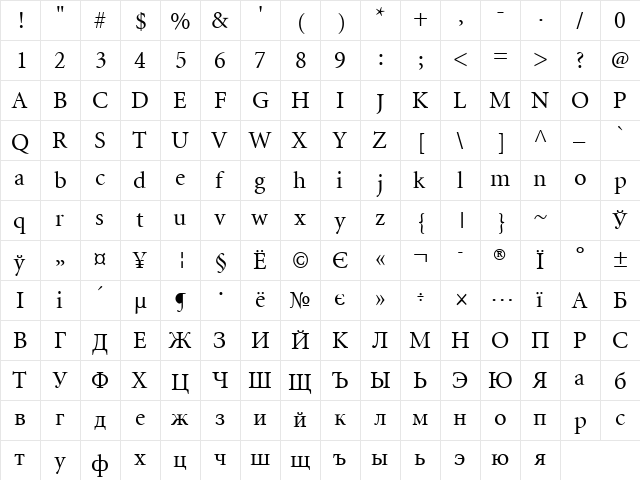
Miniature Normal
Design Context for Miniature Typeface
Miniature takes a measured approach to typography — its balanced proportions and neutral character make it a reliable workhorse for both digital and print work.